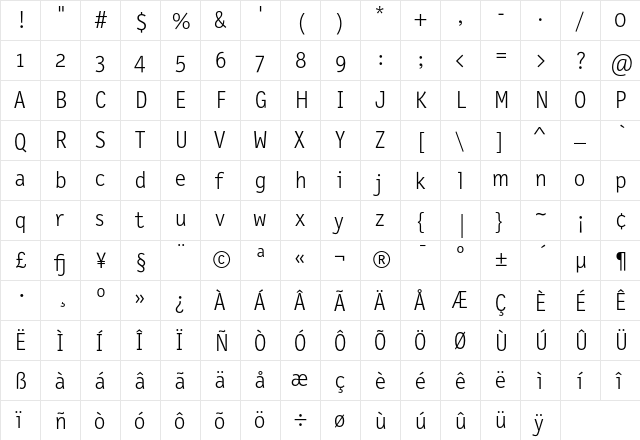
LetterGothicText Light
Design Context for LetterGothicText Typeface
LetterGothicText has the quiet confidence of well-executed sans-serif typography: versatile, unobtrusive, and dependable at any size. The delicate stroke weight brings airiness and refinement to layouts.
Ideal for fashion and beauty branding, minimal editorial layouts, and premium digital experiences.
Font Pairing: Pair LetterGothicText with a medium or bold serif for headlines — the weight contrast creates an elegant, high-end feel.
Pro Tip: Avoid using LetterGothicText at very small sizes where its slender strokes can disappear. It performs best at medium to large sizes.